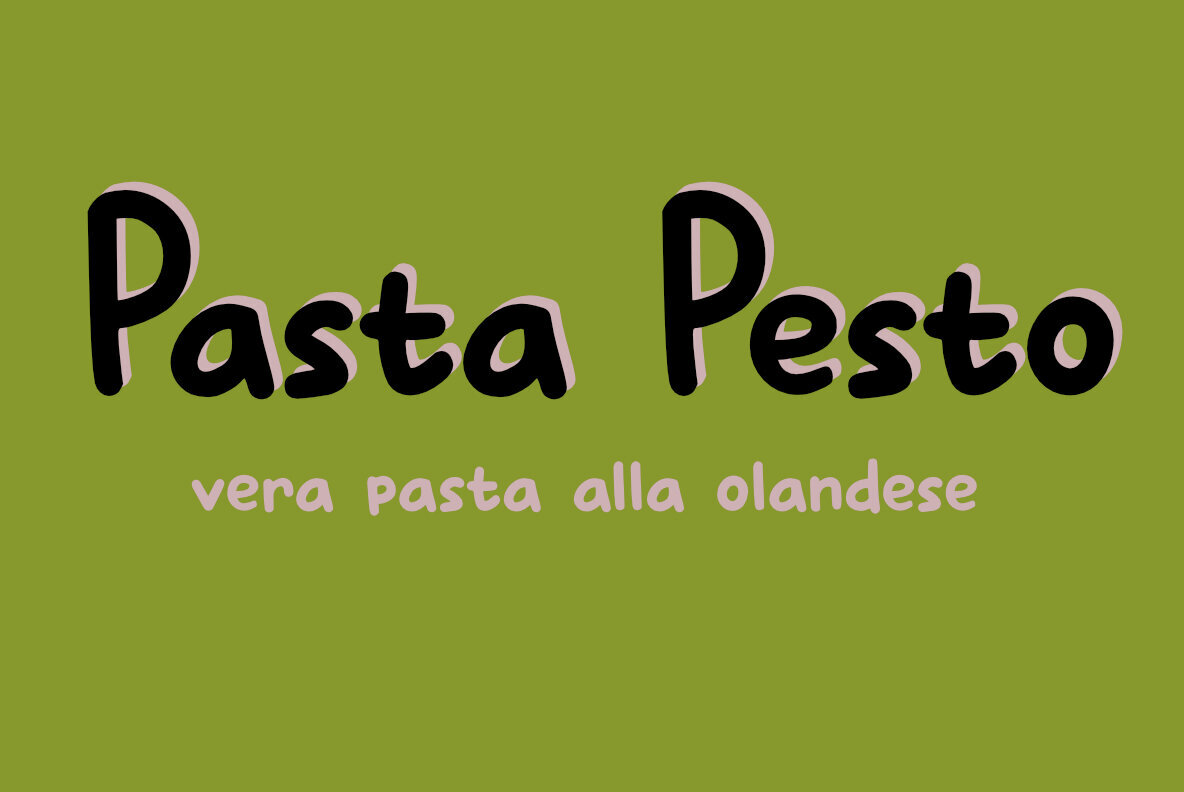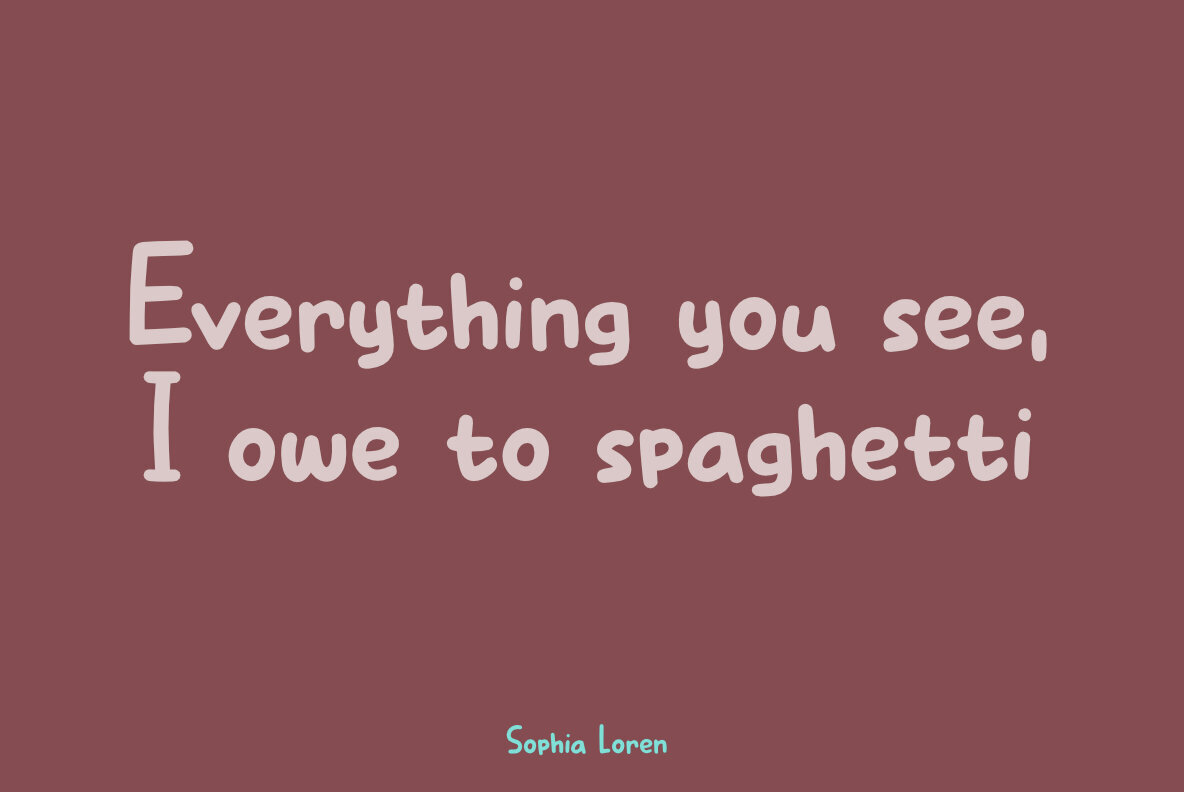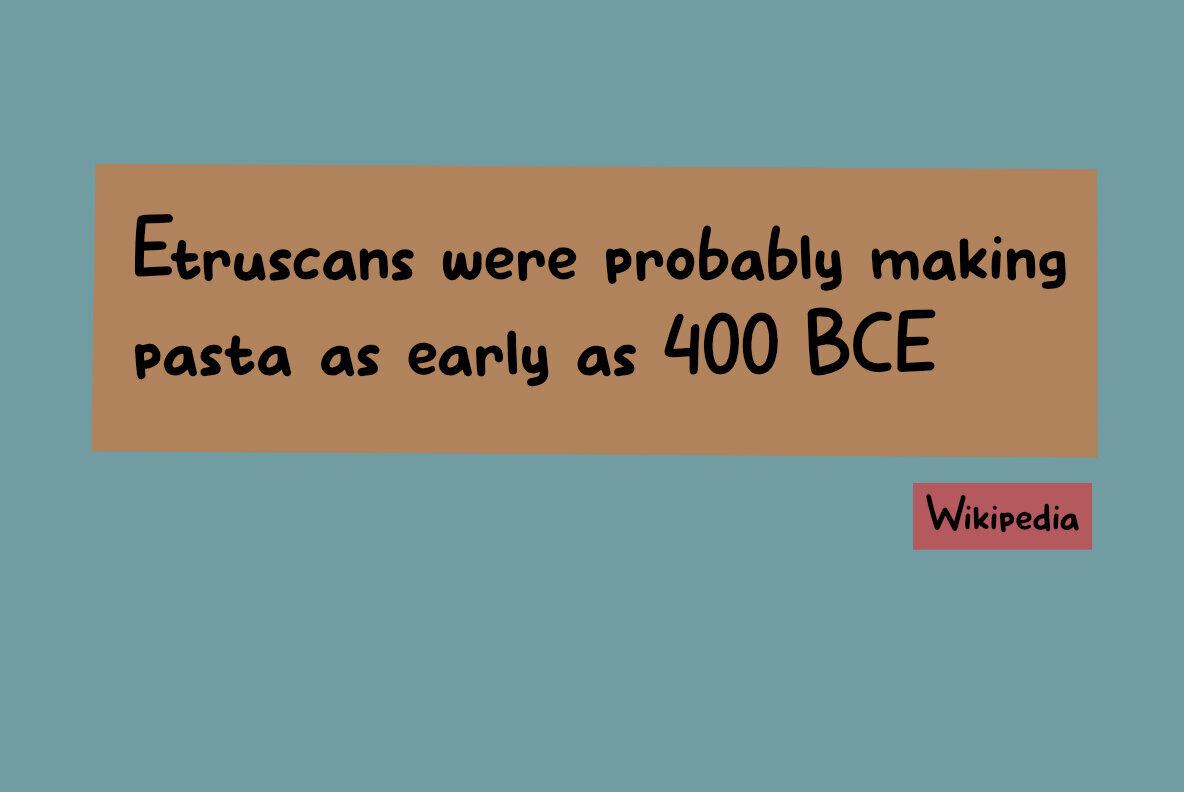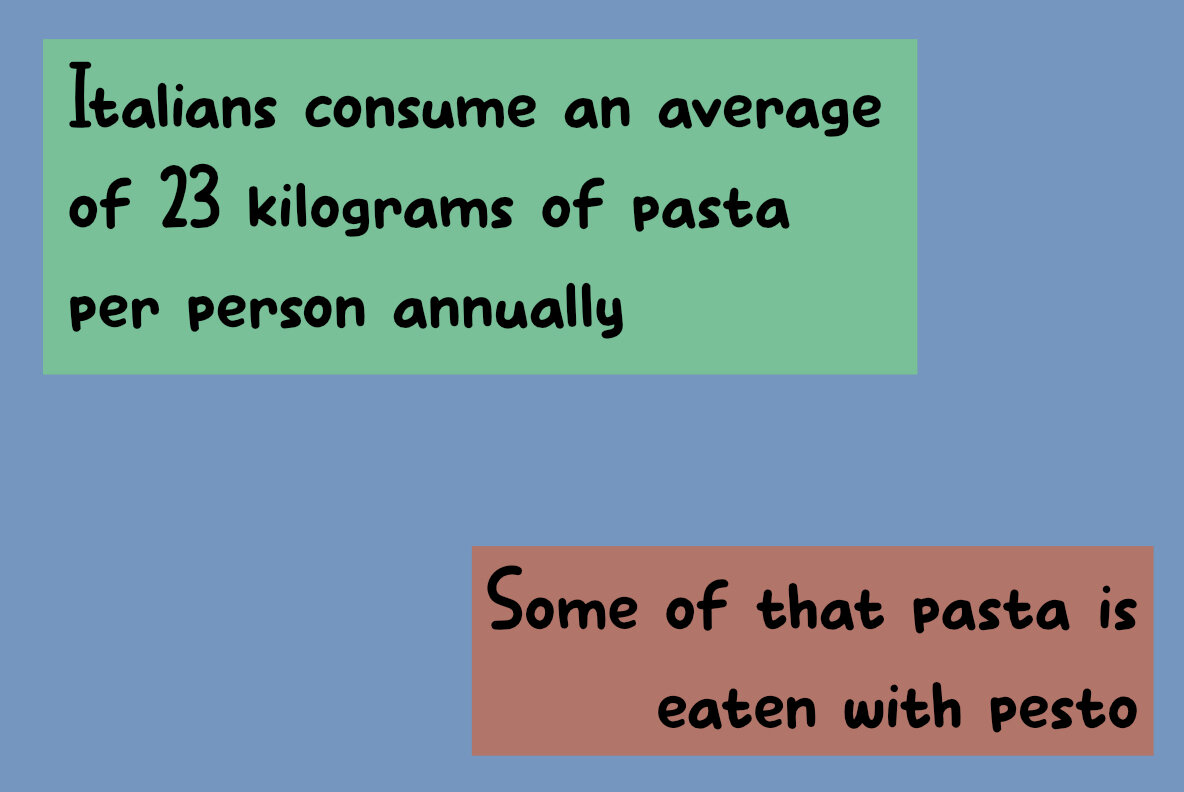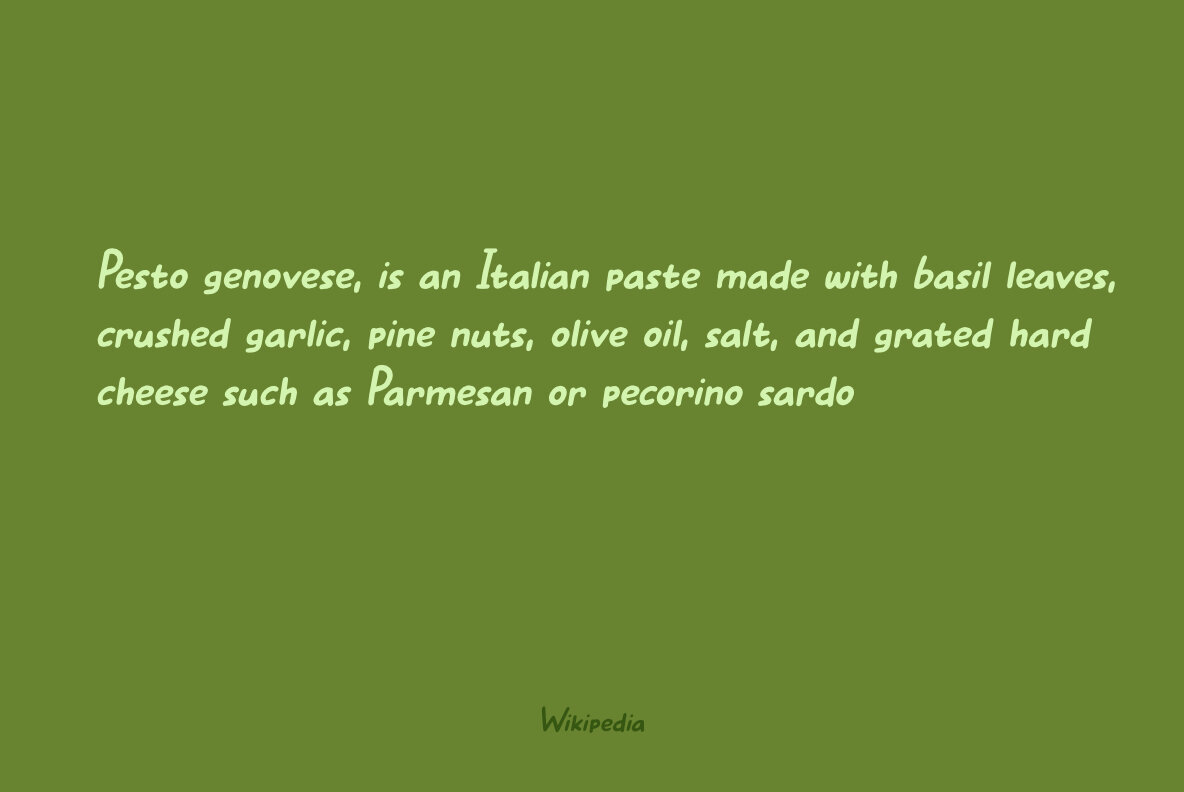
Pasta Pesto Font
Pasta Pesto Regular
Pasta Pesto Italic
Rediscover the charm of simplicity with Pasta Pesto, a friendly display font inspired by cherished family moments. Its clean and legible design makes it an ideal choice for projects needing clarity without fuss. Perfect for both professional and personal use, Pasta Pesto adds a warm, nostalgic touch to your typographic creations.Pasta Pesto - The Straightforward Display Font